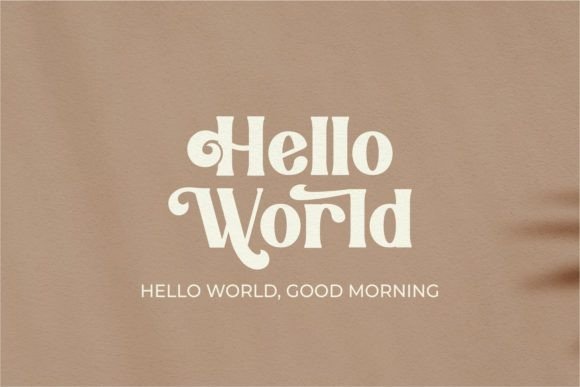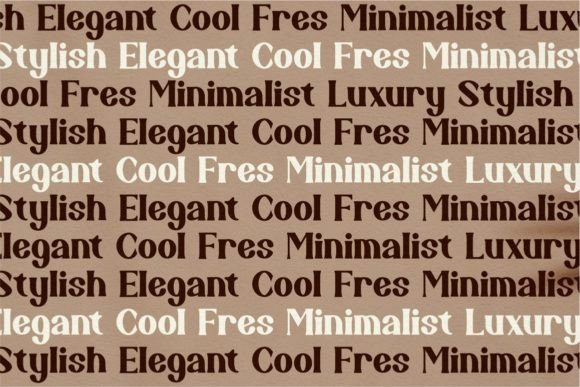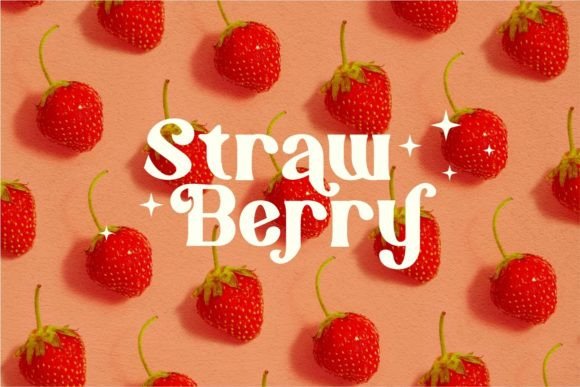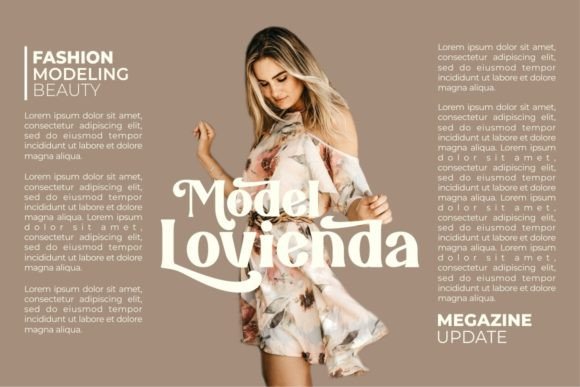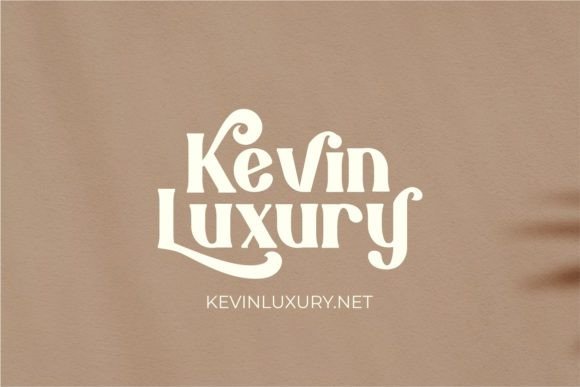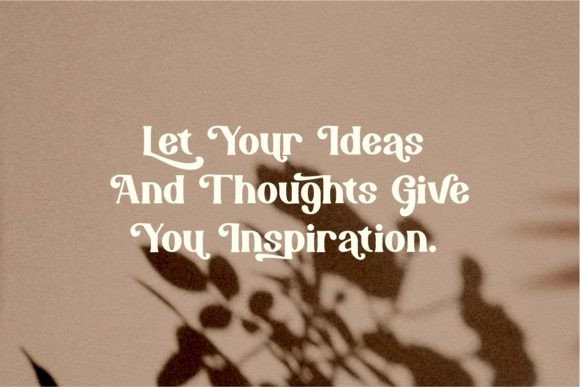
Introduction to Famous Cool Font
Famous Cool is a sophisticated, charming serif font with a fashionable touch.
Specially designed for luxury, elegant, feminine projects, this font is perfectly suitable for creating modern, chic designs It is PUA encoded which means you can access all of the glyphs and ligatures with ease.
Key Features of Famous Cool Font
Why Choose Famous Cool Font?
Famous Cool Font offers exceptional quality and versatility, making it a valuable addition to your design toolkit. Whether you’re creating for personal projects or commercial use, Famous Cool Font delivers professional results.